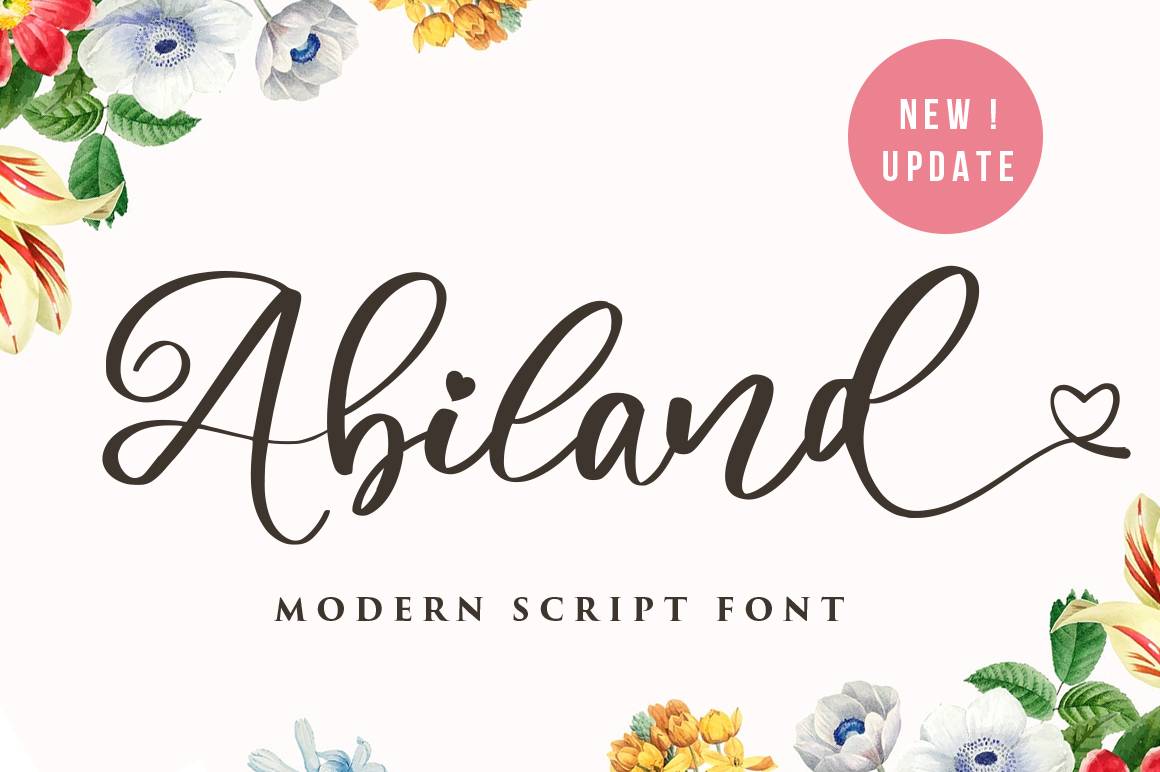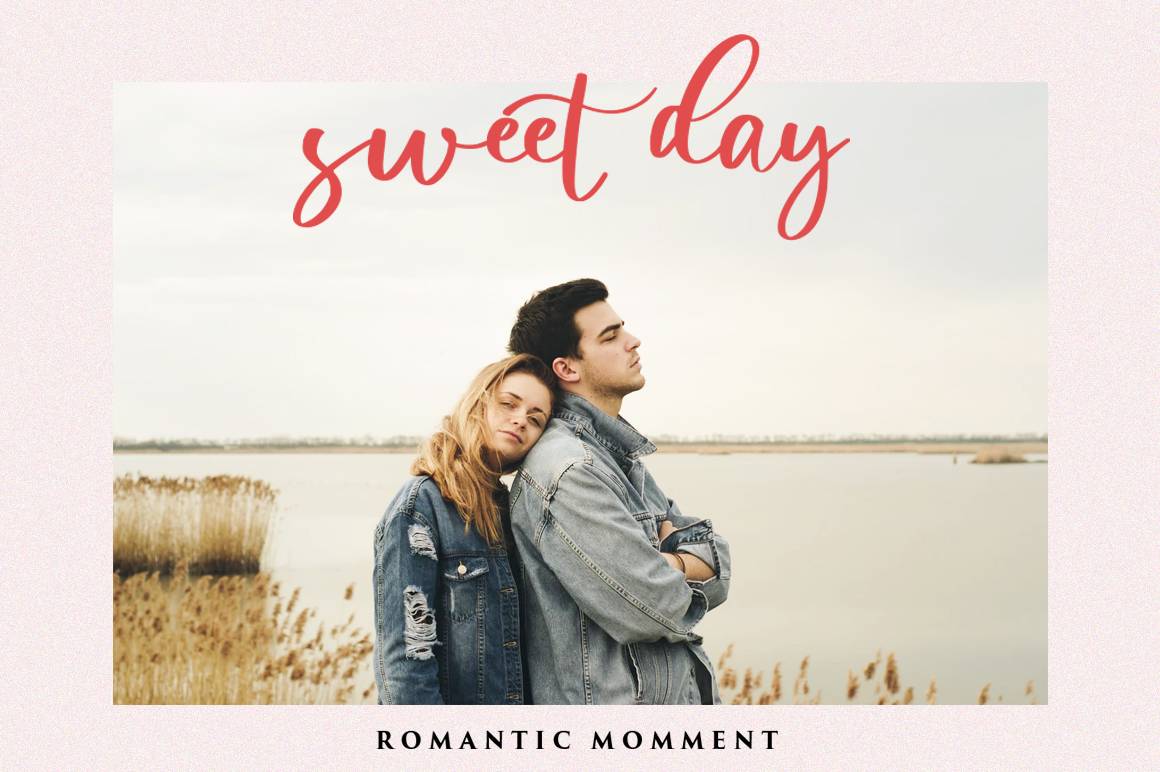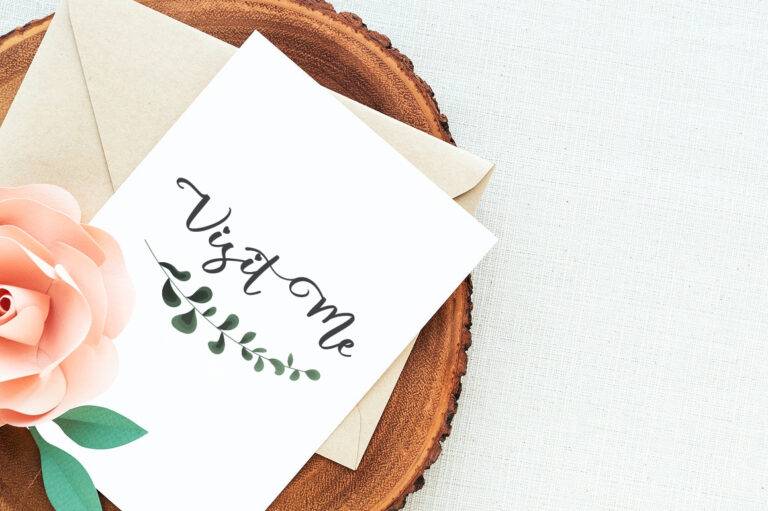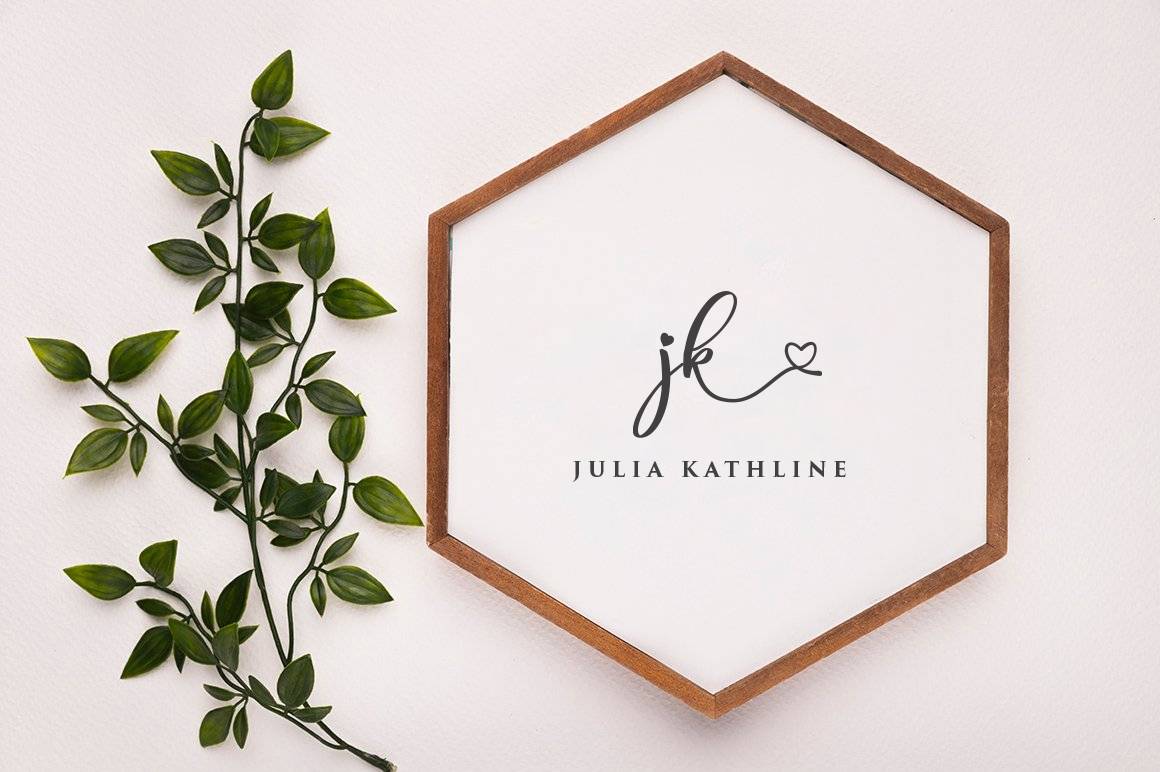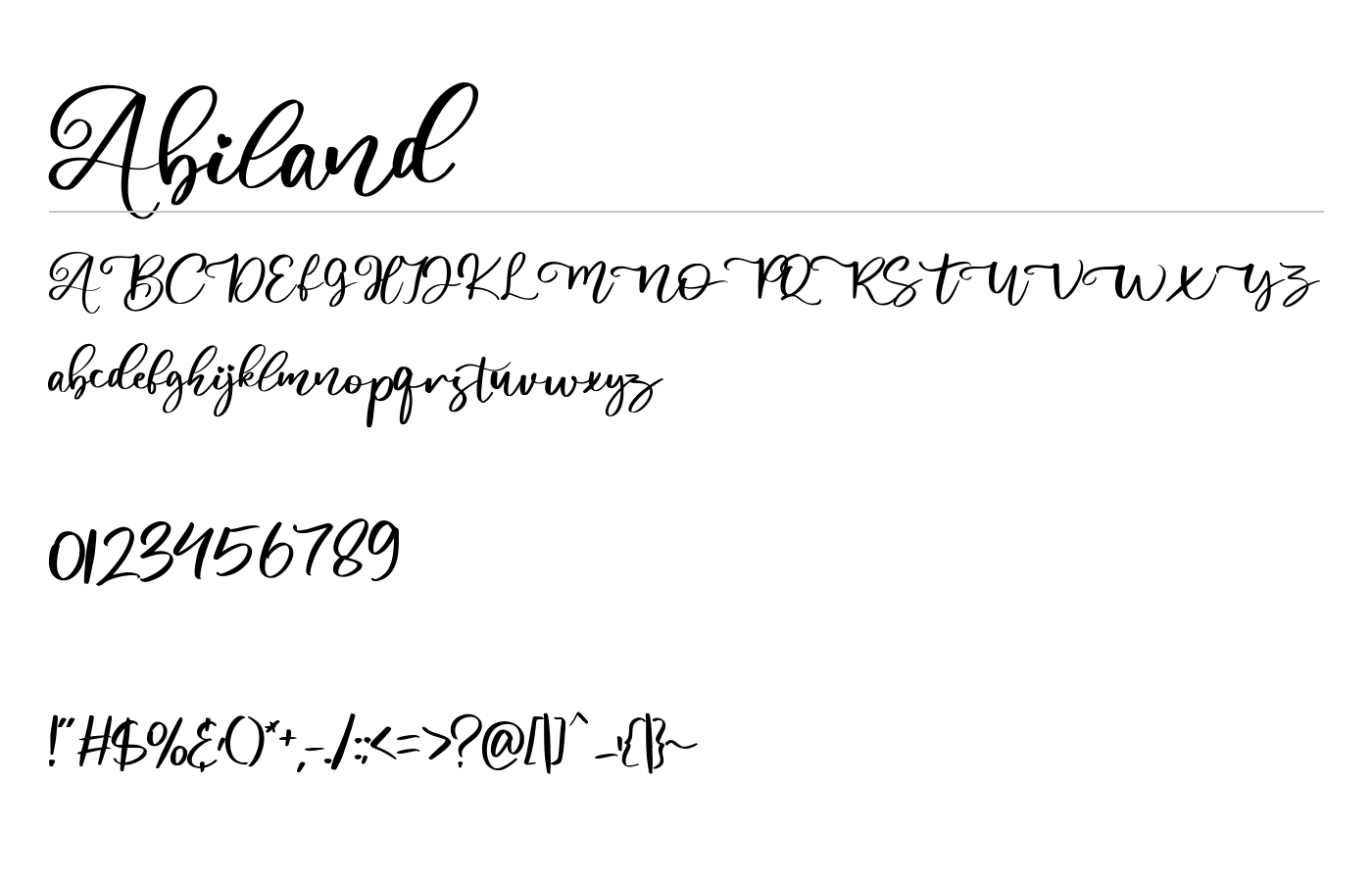
Abiland Modern Calligraphy is an elegant and flowing script font characterized by its smooth, graceful strokes and organic, hand-drawn feel. It features moderately high contrast with delicate, curving lines and distinctive letterforms that include charming flourishes and heart-shaped dots. Perfect for wedding invites, branding, and feminine design projects, this font lends a personal, sophisticated touch that works beautifully in headlines and decorative text.
Abiland Modern Calligraphy Font
About Abiland Modern Calligraphy Font
| Font family | Abiland Modern Calligraphy Font |
| Designer | Vultype Co |